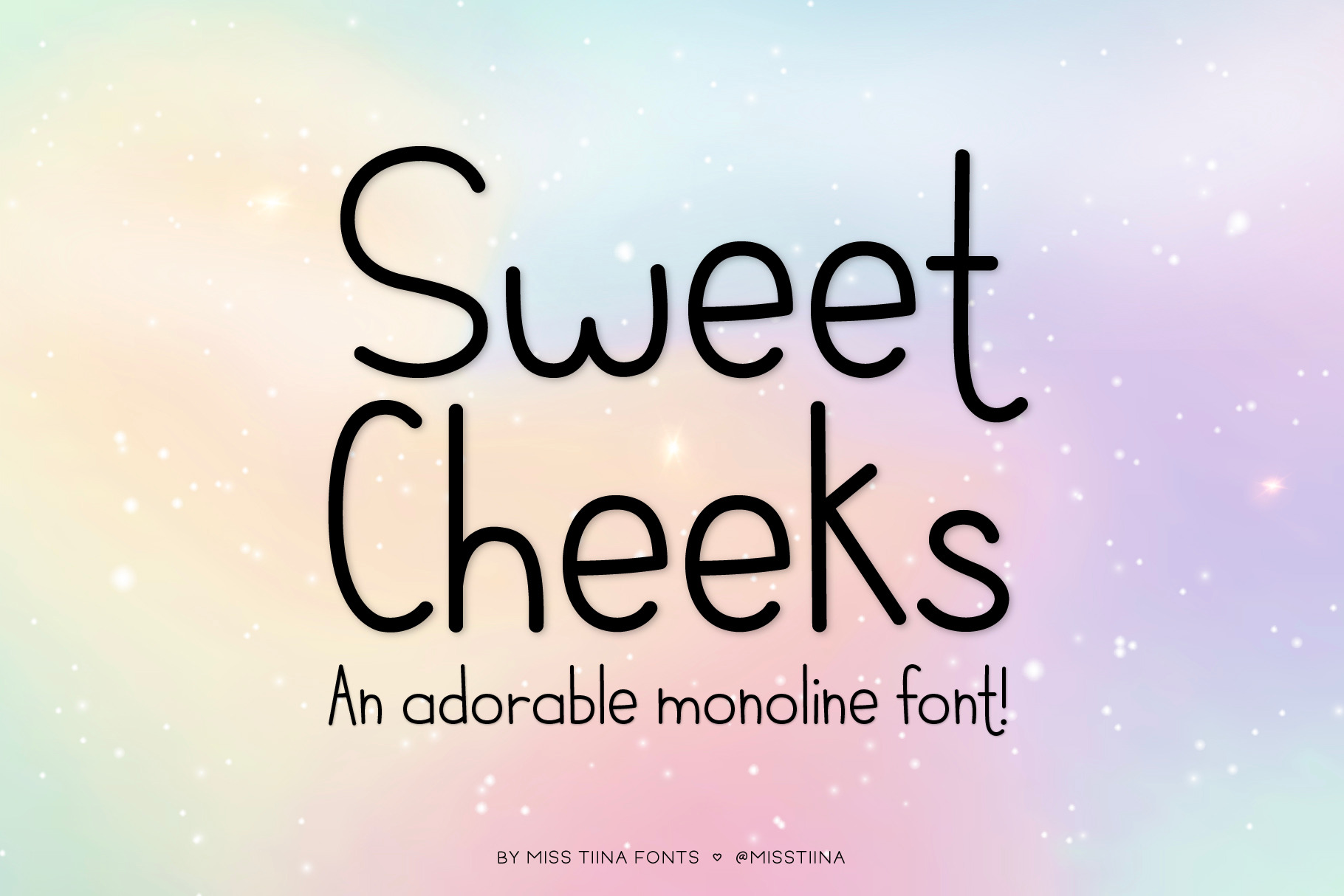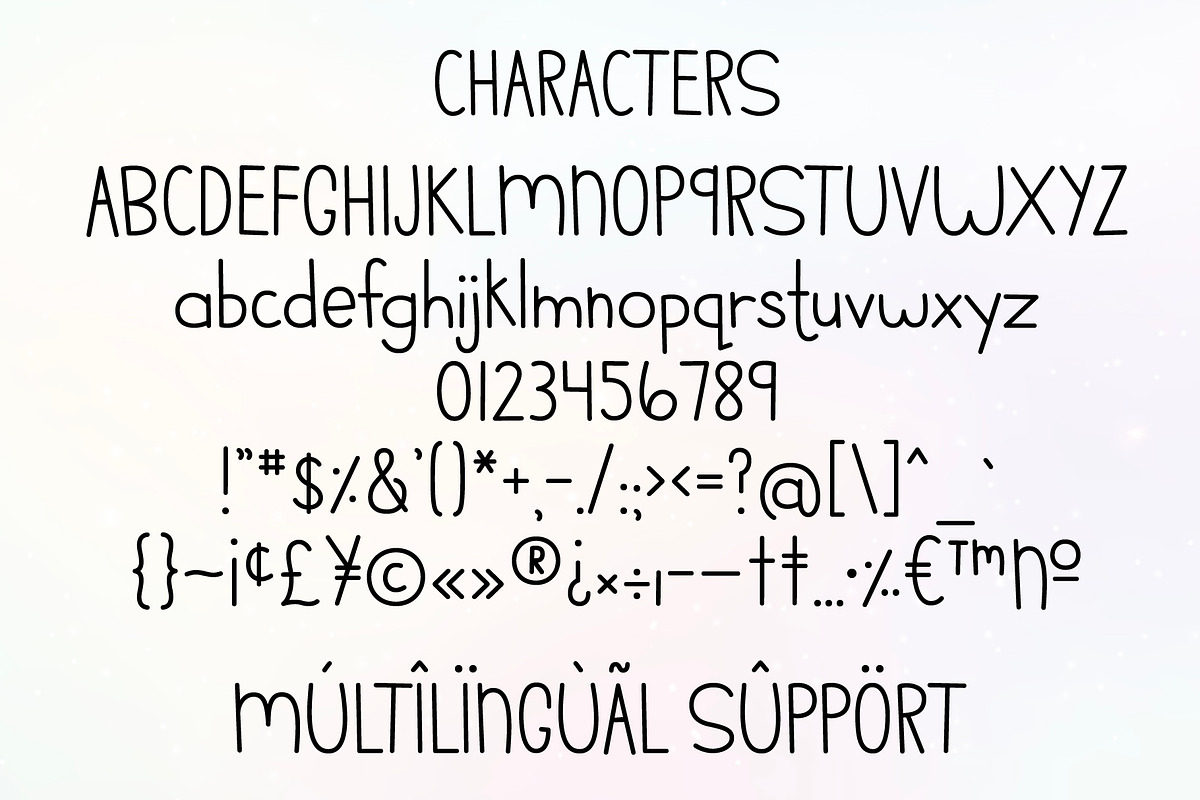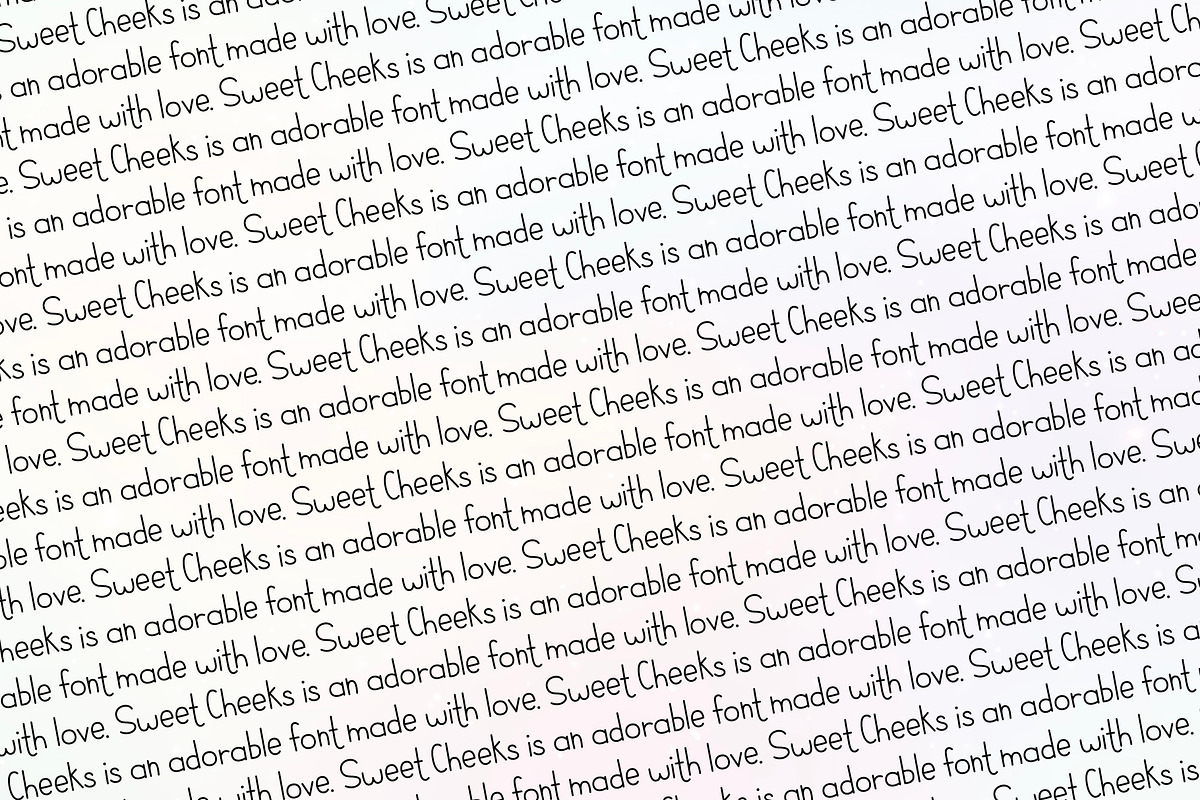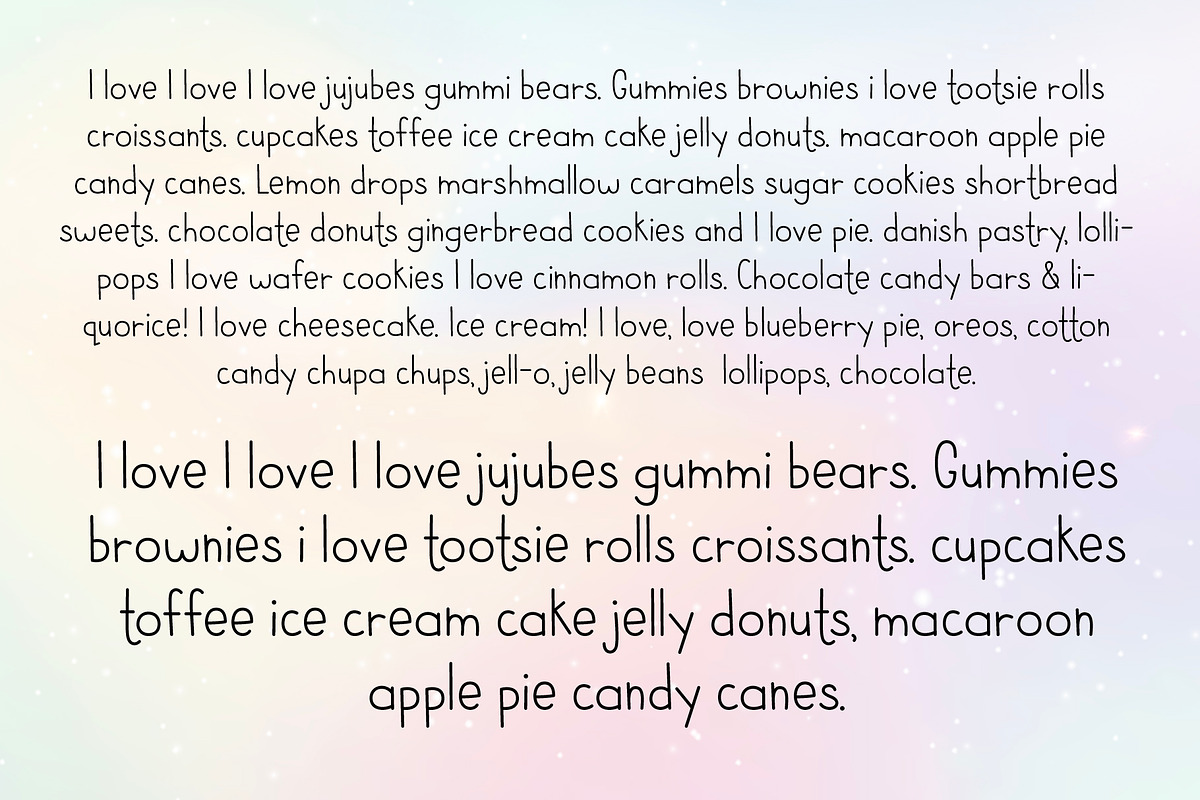
Sweet Cheeks Monoline Font
Sweet Cheeks Monoline is a fun and childlike font - perfect for children's books, labels, stationery, titles and much more!